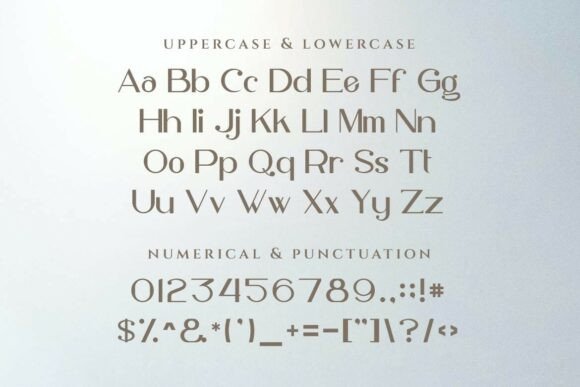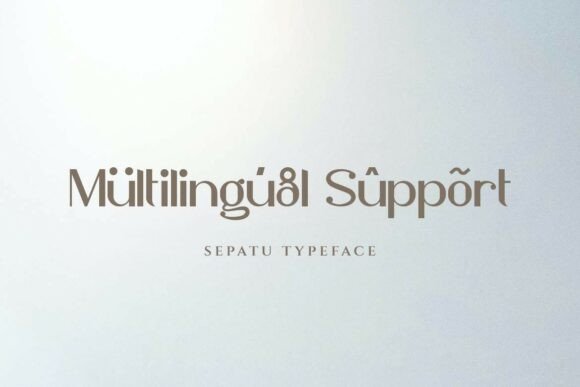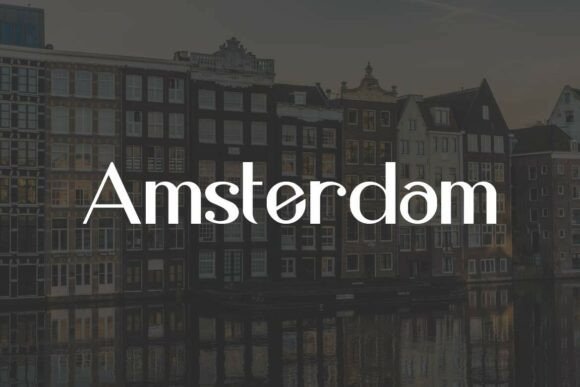
Introduction to Sepatu Font
Have you ever been working on a creative project, pouring your heart and soul into it, only to feel like something’s missing? You’ve got the perfect idea, but the design just isn’t quite there? That’s where the perfect font comes in – and we’re excited to introduce you to Sepatu Font, a sleek and modern sans serif font that’s about to revolutionize your design game.
With its clean lines, open spacing, and balanced structure, Sepatu Font is the ultimate design resource for creatives looking to bring clarity and elegance to their work. Whether you’re working on branding, editorial layouts, fashion lookbooks, or modern product design, Sepatu Font is the perfect companion to help you achieve your vision.
Key Features of Sepatu Font
- High-quality font design ideal for creative projects requiring a unique aesthetic.
- Designed to be versatile and adaptable, suitable for a wide range of design applications, including branding, packaging, and typography.
- Unique characteristics include distinctive letterforms, bold lines, and a modern feel, setting it apart from other font designs.
Honest Review: Sepatu Font
I recently stumbled upon the Sepatu Font and I must say it’s a great addition to any creative project. The high-quality design is crisp and clean, making it perfect for a variety of applications.
- High-quality design: The font is well-designed and looks great on any screen.
- Limited character set: The font only includes a limited number of characters, which may not be suitable for more complex projects.
- No bold or italic versions: While the font is high-quality, it would be even more versatile with bold and italic versions available.
Overall, I’m impressed with the Sepatu Font and would definitely recommend it to designers looking for a reliable and customizable design resource.
Sepatu Font is ideal for:
- Branding and logo design.
- Graphic design and digital art.
- Print design and typography.